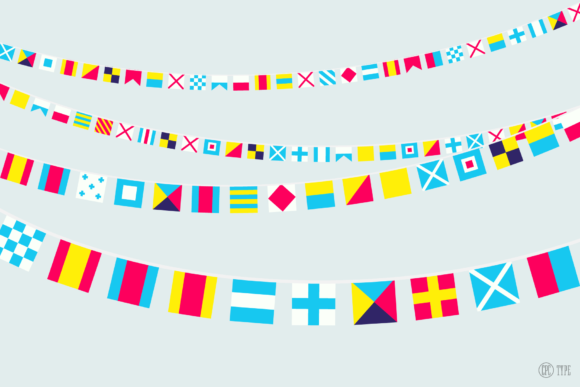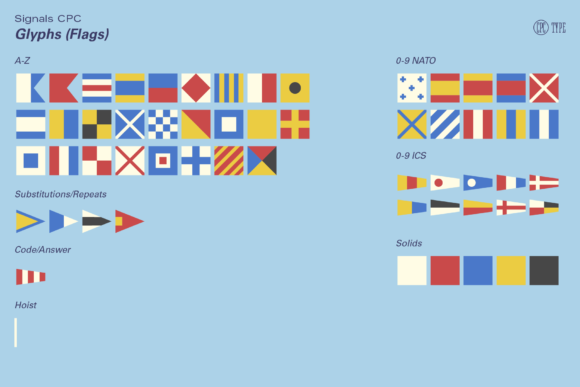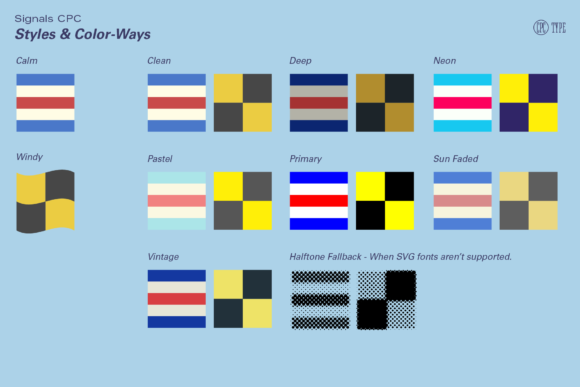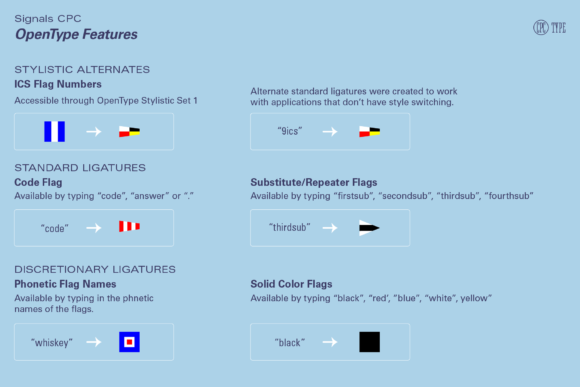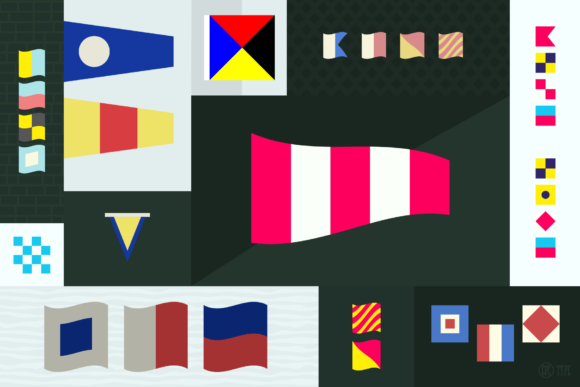
Signals CPC Font
About Signals CPC Font
The maritime signal flags font you described sounds like a fantastic addition to any maritime-themed project or design. Here are some ideas for using this font:
1. Nautical Communication: Use the font to create educational materials or interactive games to help people learn the meanings of different maritime signal flags and how they are used for communication at sea. This could be in the form of charts, flashcards, or even interactive digital applications.
2. Secret Messages: Create fun and mysterious designs by using the maritime signal flags font to encode secret messages. People can decipher the messages by learning the meanings of each flag or by using a key provided alongside the design.
3. Branding: If you have a sea-worthy company or a restaurant with a maritime theme, the maritime signal flags font can be an excellent choice for your branding. Use it for your logo, signage, menus, or any other branding materials to create a cohesive and authentic nautical atmosphere.
4. Simple and Elegant Labels: The classic and iconic look of the maritime signal flags font can lend itself well to creating simple and elegant labels. Whether it’s for packaging, product labeling, or organizing items, the font can add a touch of maritime charm and sophistication.
5. Apparel: Consider using the maritime signal flags font to create designs for apparel items like hats, shirts, or tote bags. These items can be popular among maritime enthusiasts, sailors, or anyone who appreciates the nautical aesthetic.